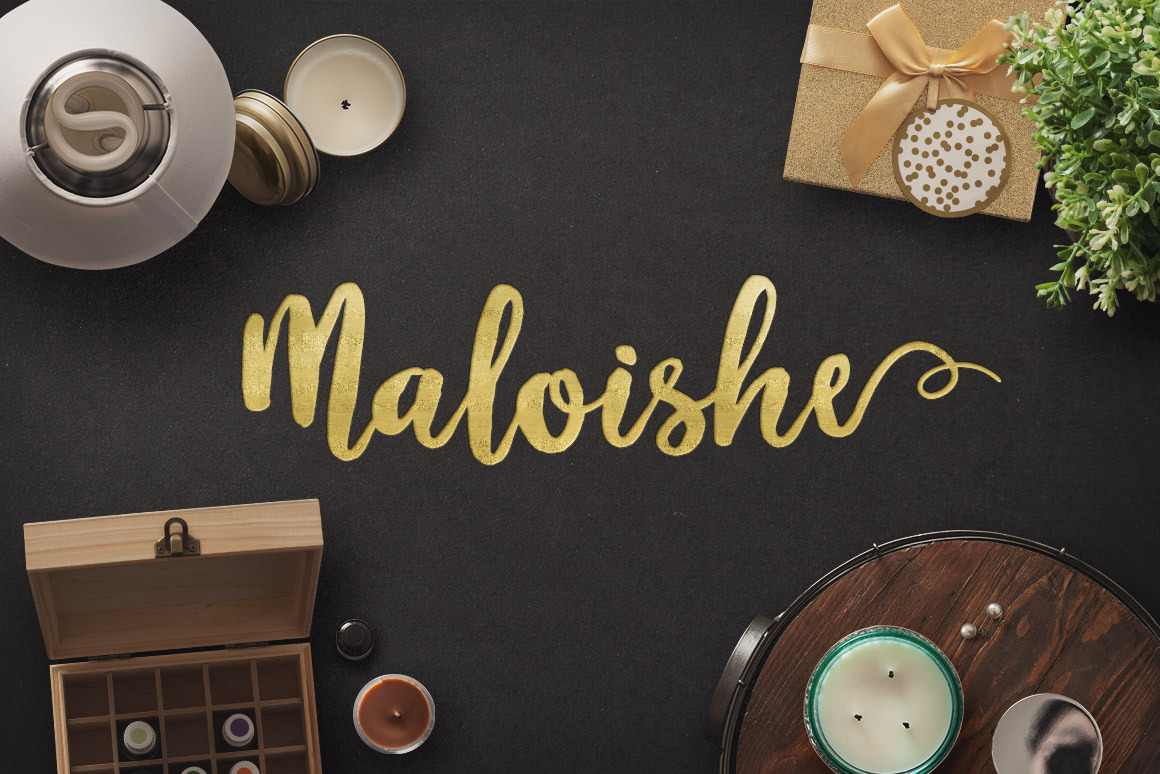
Maloishe Brush Script Font
Maloishe is a handmade brush script font that is oozing with character. It is the perfect typeface for logos, product packaging, signs, and much more.
On the surface, Maloishe looks like a standard font, but it includes more than typical western glyphs.
You get alternate characters for the the entire uppercase alphabet, initial and terminal forms for decorative beginnings and ends, stylistic ligatures, extended Latin characters, Cyrillic characters, numbers, symbols, and more.
This is a full-fledged, production-ready font with no need for customization or editing. OpenType features and multilingual support make it easy to type, save, and go to print.